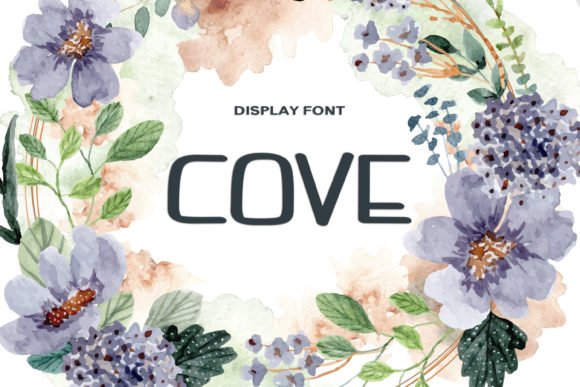
The Birth of a Futuristic Idea
You know that moment when a spark of creativity strikes, and your imagination runs wild? It’s like a burst of electricity that ignites a thousand possibilities. For designers, it’s the moment when a project starts to take shape, and the possibilities are endless. But what if you had the perfect tool to bring your ideas to life?
Enter Cove Font, a bold yet minimalistic display font that’s about to revolutionize the way you think about design. With Cove Font, you can add a touch of futuristic flair to your projects, elevating them to new heights. Its unique shape and style make it the perfect addition to any design, from sci-fi novels to cutting-edge tech logos.
For designers, Cove Font is a game-changer. It’s a versatile tool that can be used to create anything from eye-catching headlines to futuristic interfaces. With its bold yet minimalistic style, Cove Font is the perfect way to add a touch of innovation to your designs.
Cove Font Key Features
- Font Family: Cove Font is a sans-serif font family designed for digital use. It is available in various styles, including regular, bold, italic, and bold italic.
- Character Set: The font family includes a comprehensive character set, covering Latin, Cyrillic, and Greek alphabets, as well as a range of punctuation and special characters.
- Unique Characteristics: Cove Font features a clean and modern design, with subtle rounded corners and a high x-height, making it highly legible in digital environments.
Cove Font Review
Overall, I’ve had a decent experience with Cove Font. Here’s what I like about it: ✨
- Unique style: Cove Font has a distinct aesthetic that sets it apart from other fonts.
- Good for body text: It’s legible and easy to read, making it suitable for large blocks of text.
- Works well in digital formats: I’ve used Cove Font for digital projects, and it displays nicely on various screens.
- Not ideal for headings: Cove Font can get a bit too casual for headings, and it might not hold up in larger font sizes.
- Limited language support: I’ve noticed that Cove Font doesn’t have extensive language support, which might be a concern for projects that require multiple languages.
- May not be as versatile: While Cove Font is great for body text, it might not be the best choice for titles, logos, or other high-contrast applications.
Overall, Cove Font is a solid choice for digital projects, but it’s not without its limitations. If you’re looking for a unique, readable font for body text, Cove Font might be worth considering. Just be aware of its potential drawbacks and adjust your expectations accordingly.
Tips for Getting the Most Out of Cove Font
Use Cove Font for titles, headings, and body text to create a consistent and elegant look.
Experiment with different font sizes and styles to add visual interest to your design.
Pair Cove Font with other elegant fonts or sans-serif fonts for a clean and modern look.
Business cards and marketing materials
Blog posts and articles
Social media graphics and ads
Alternatives to Cove Font for Designers
Inter Font is a highly legible and versatile sans-serif font designed by Rasmus Andersson. It’s perfect for digital products, applications, and websites where readability is crucial. Inter Font is more geometric and modern compared to Cove Font, making it suitable for contemporary designs.